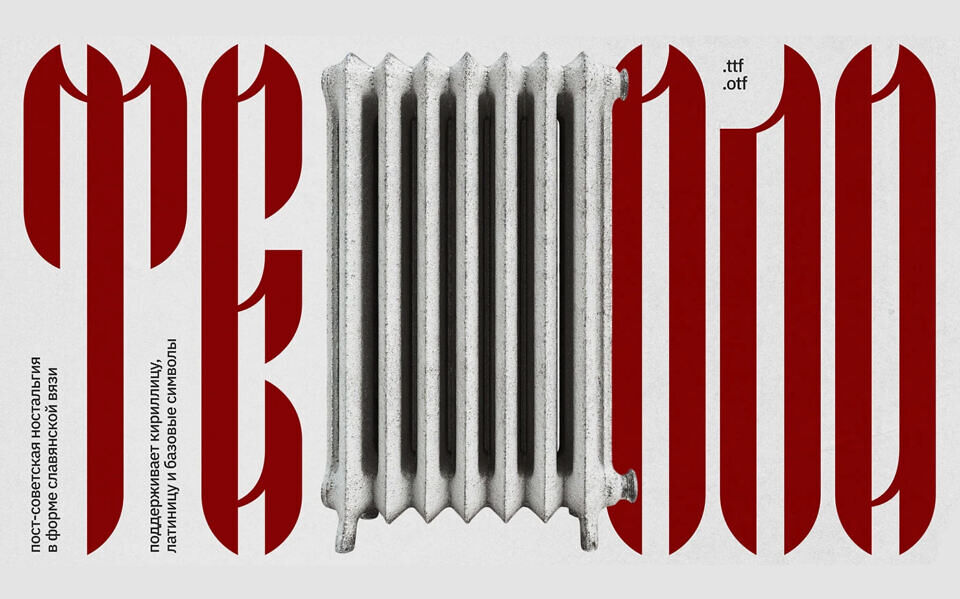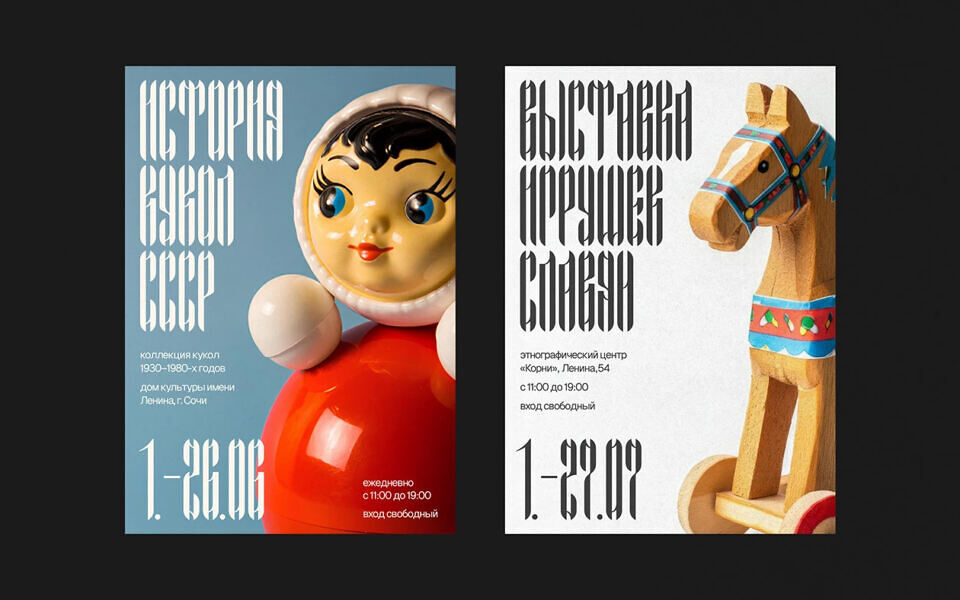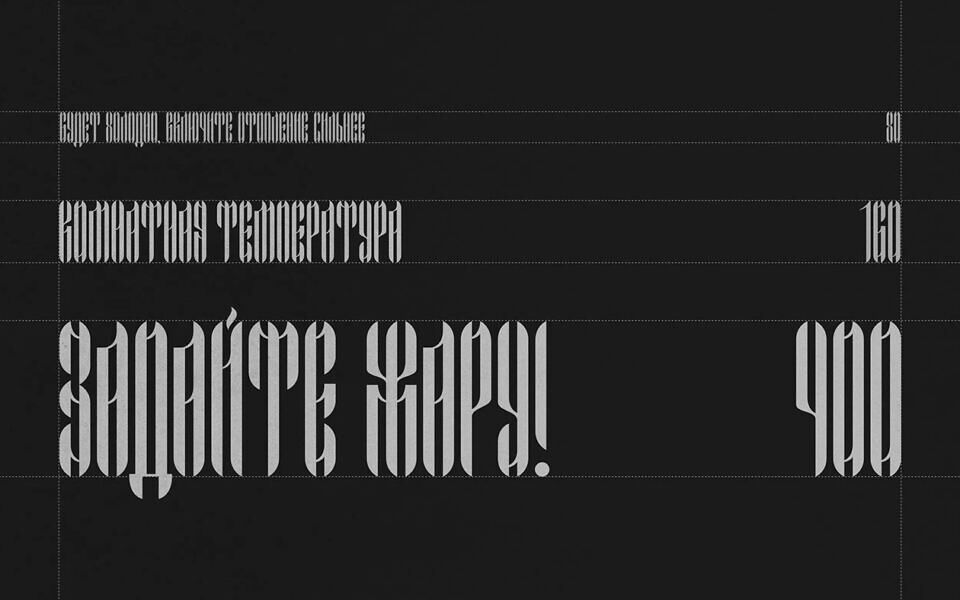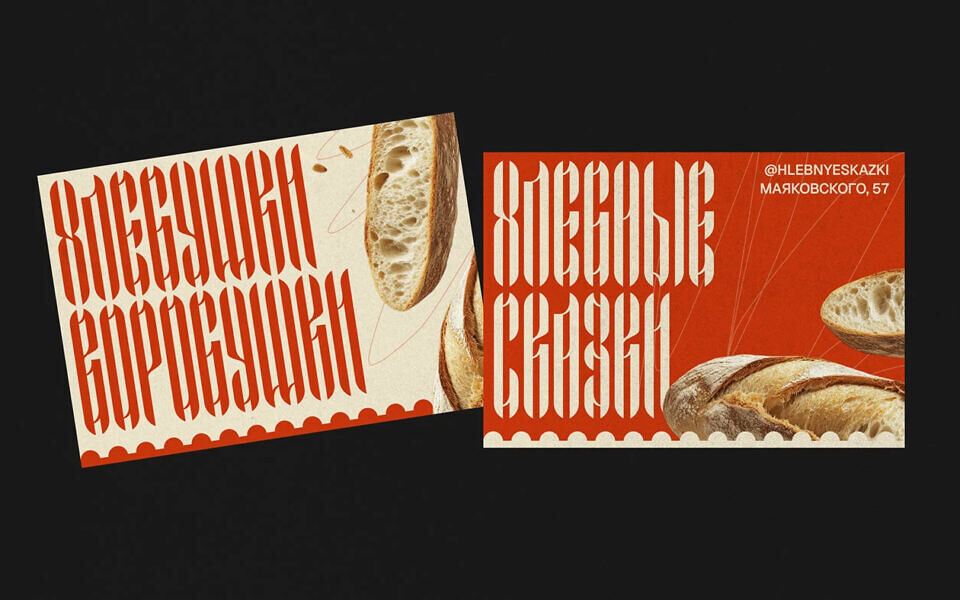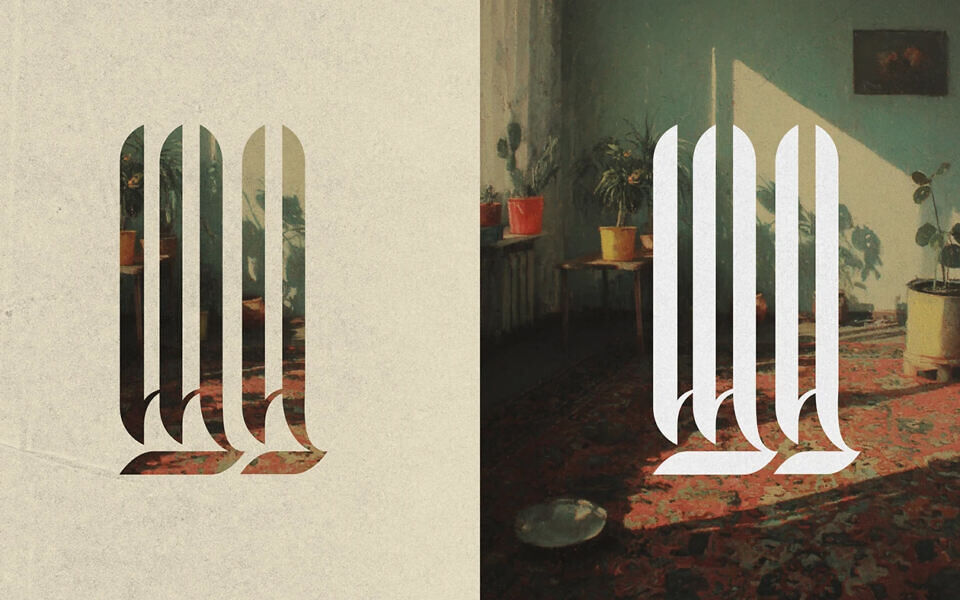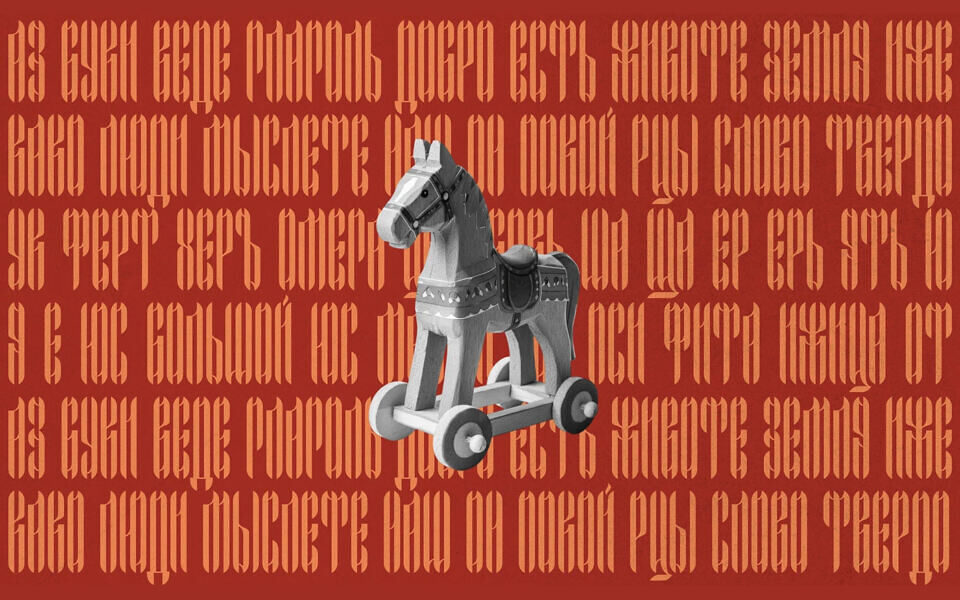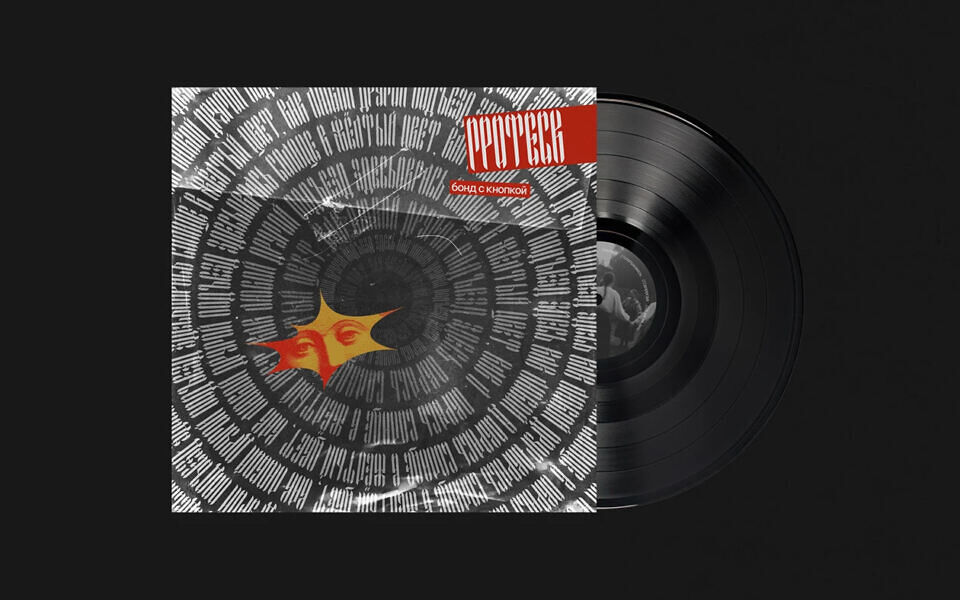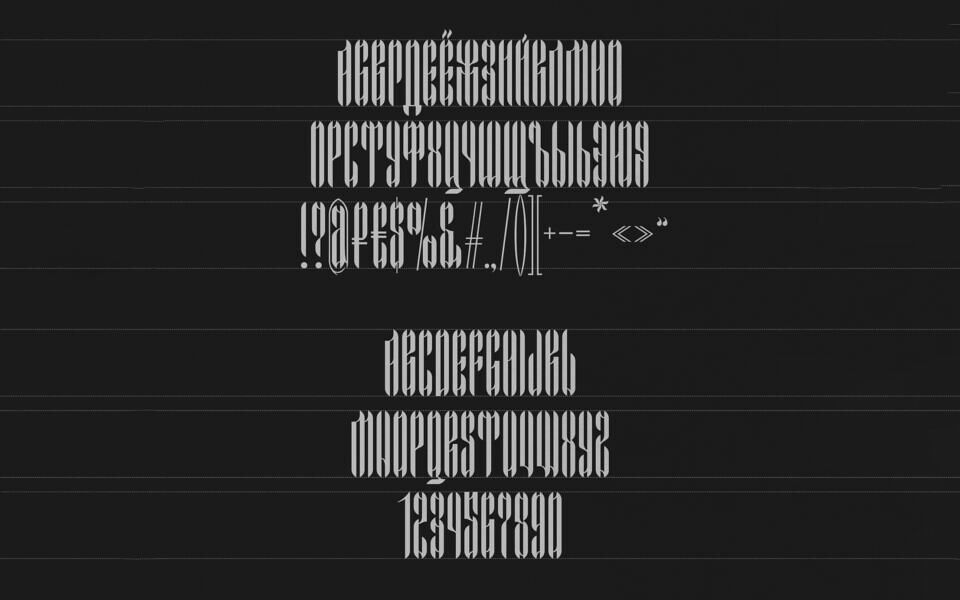
Teplo is a display font that supports Cyrillic, Latin, numerals, and basic symbols. Drawing inspiration from vintage Soviet radiators, it embodies the essence of Slavic ornamental design.
The name reflects a fusion of cultural tradition’s fiery thread with the cozy nostalgia of post-Soviet warmth and toasty winter heaters.
Perfect for bold headlines, posters, book covers, album art, and more, Teplo is free for all uses.